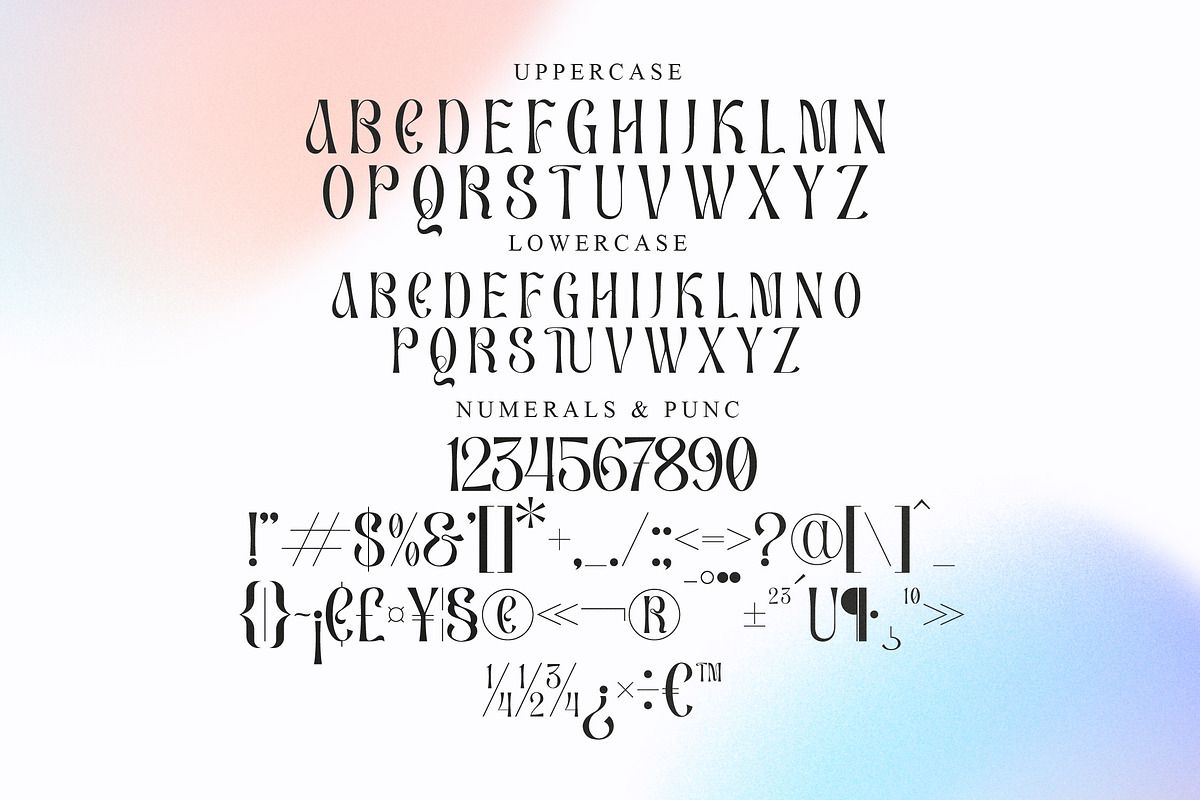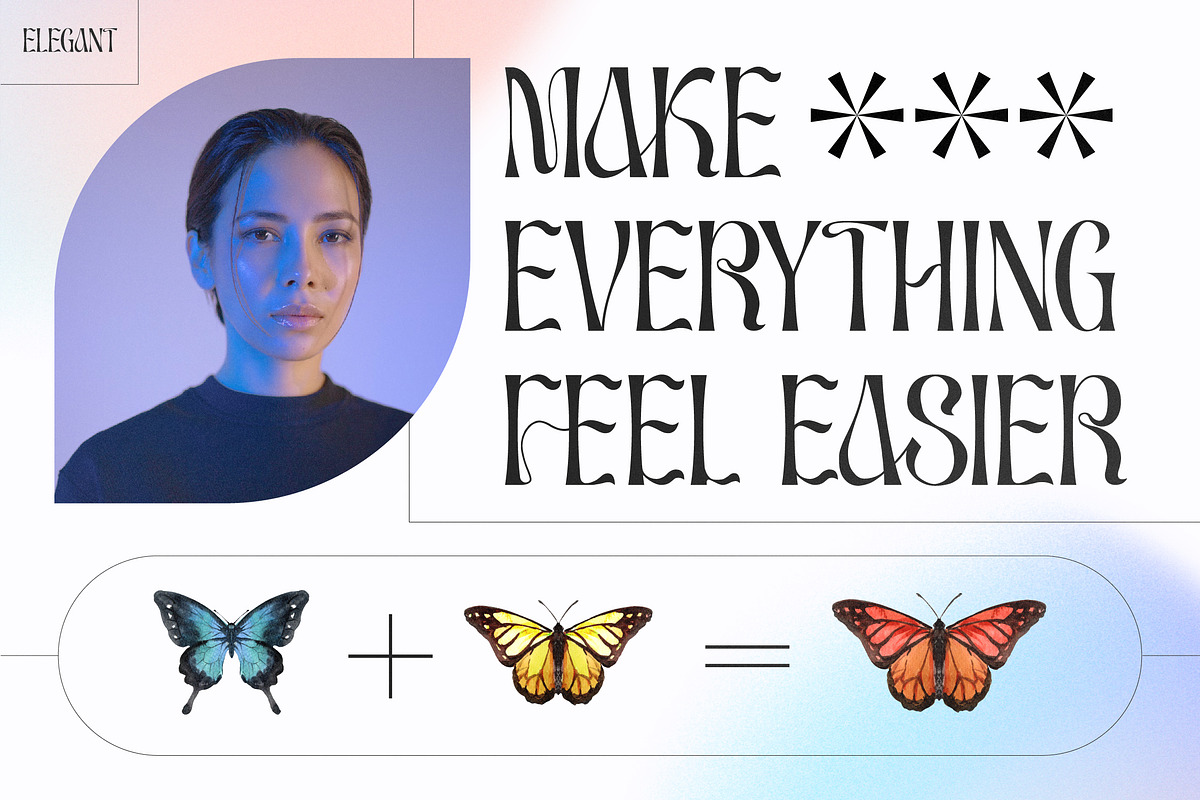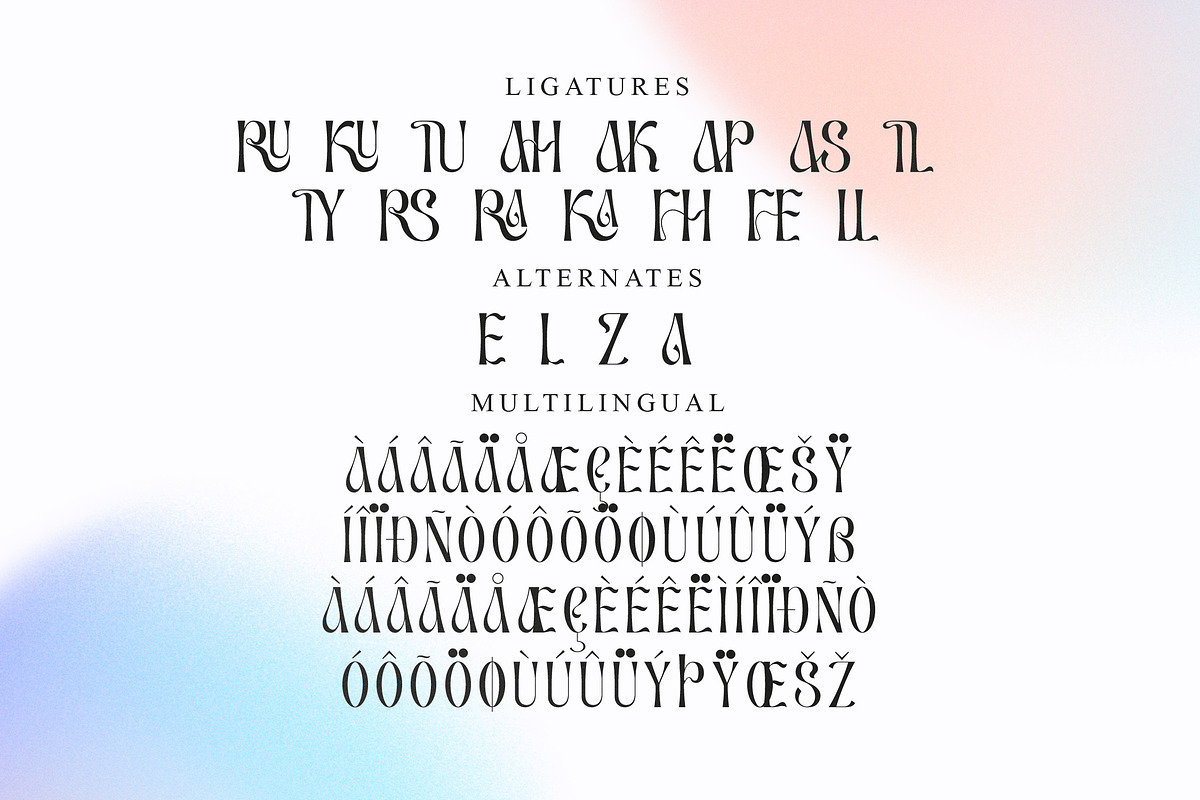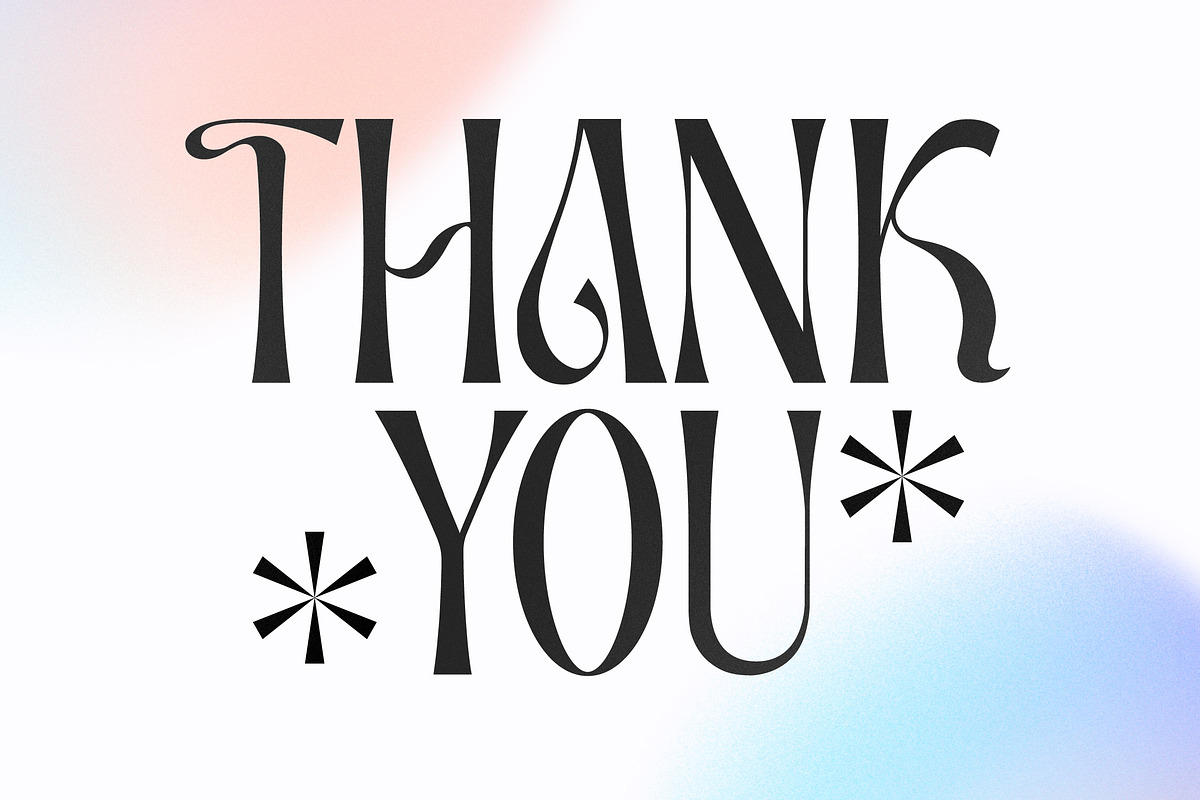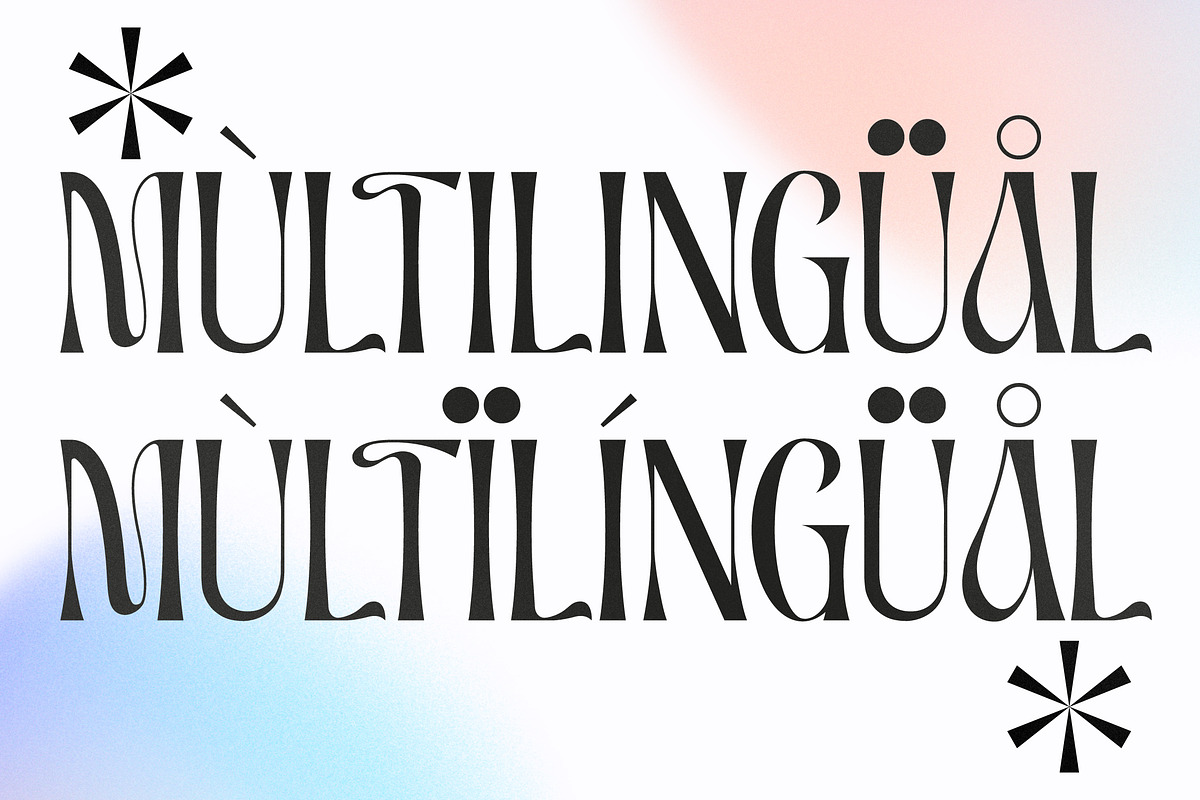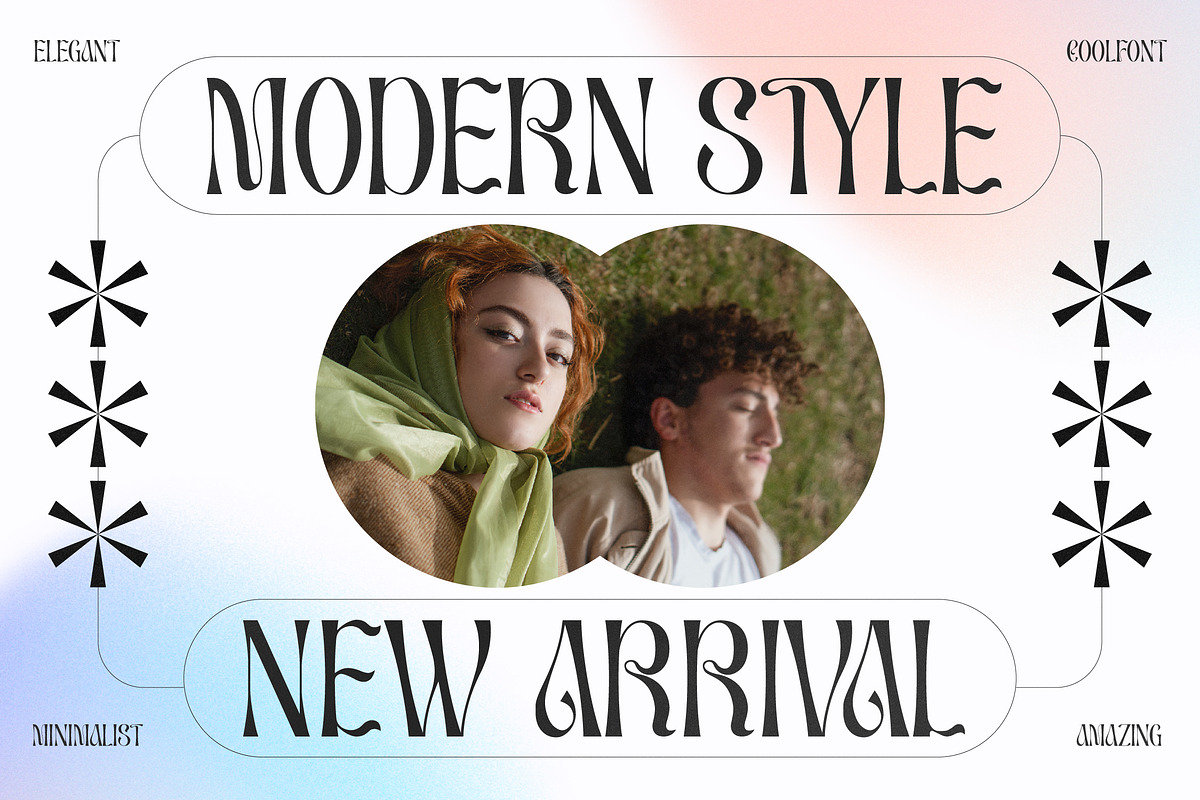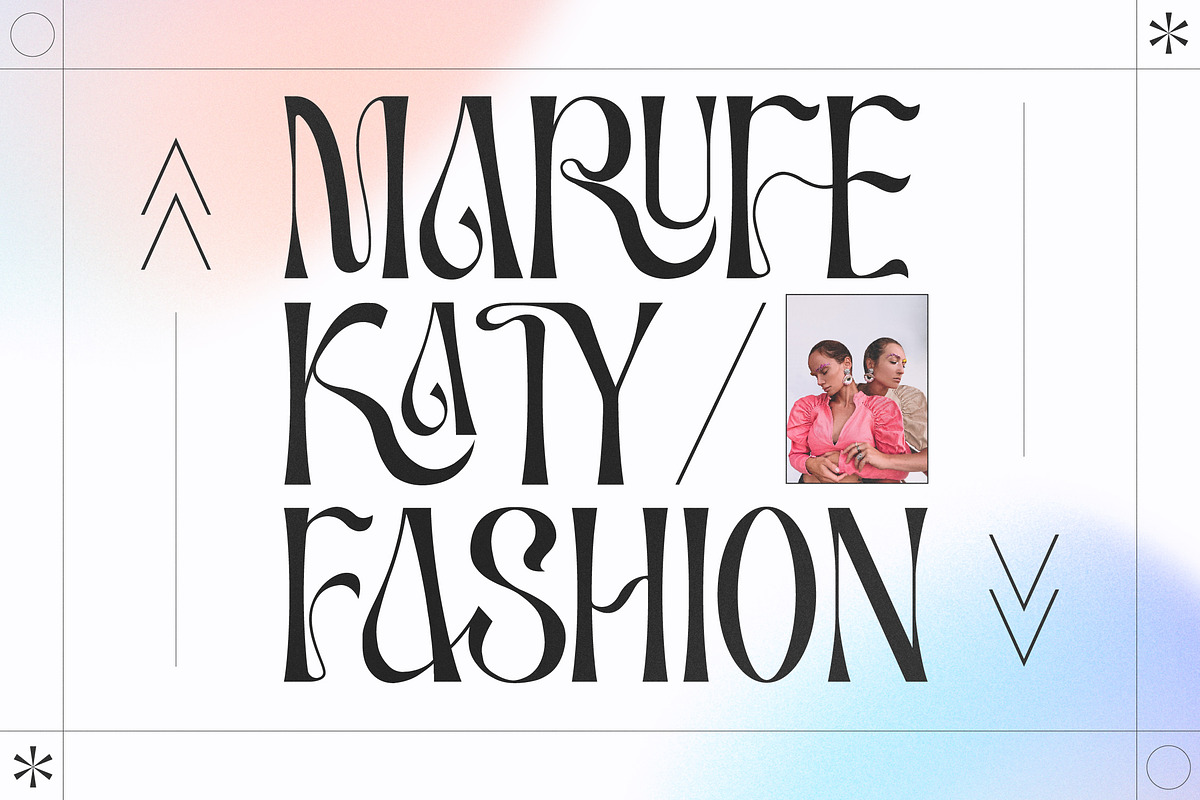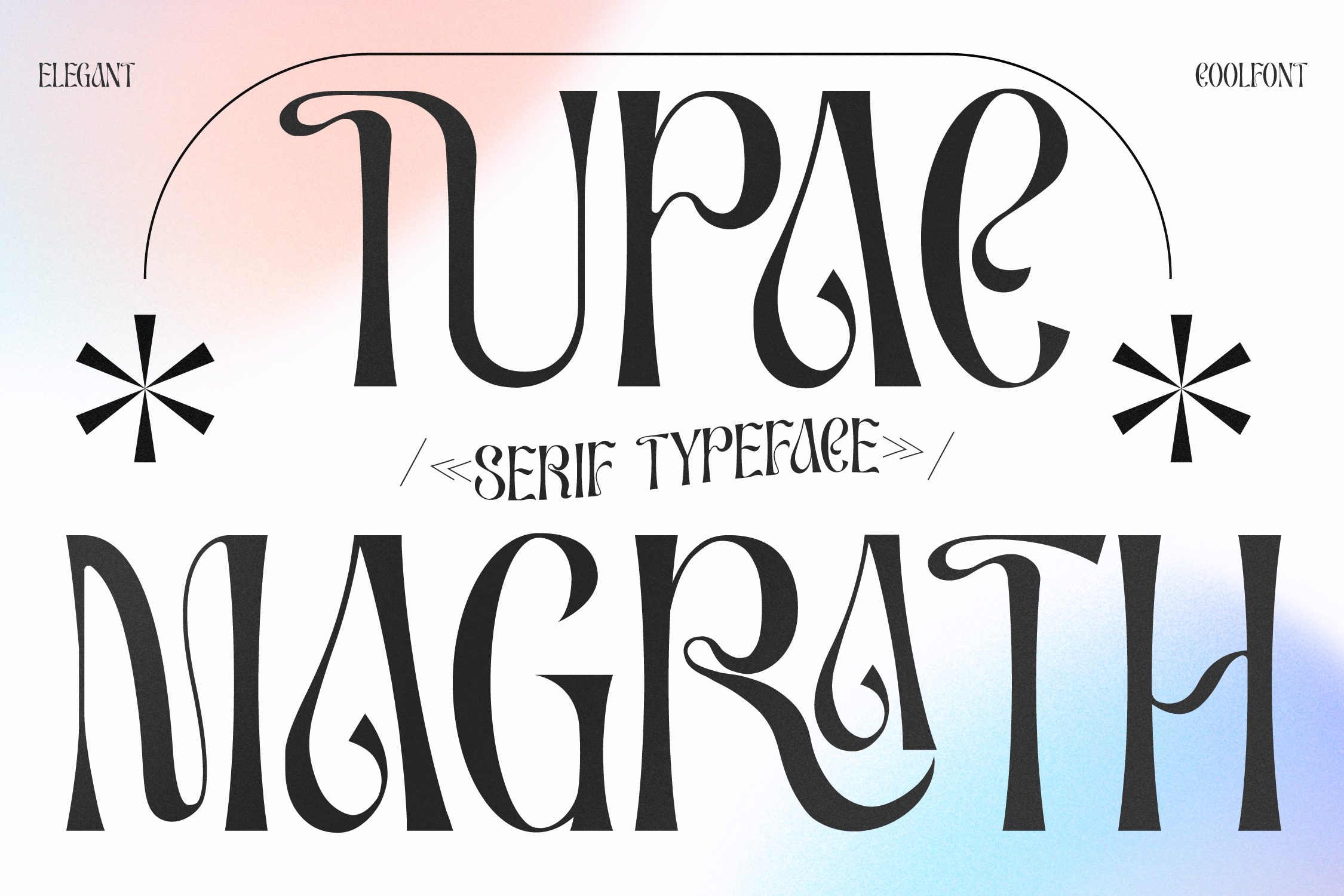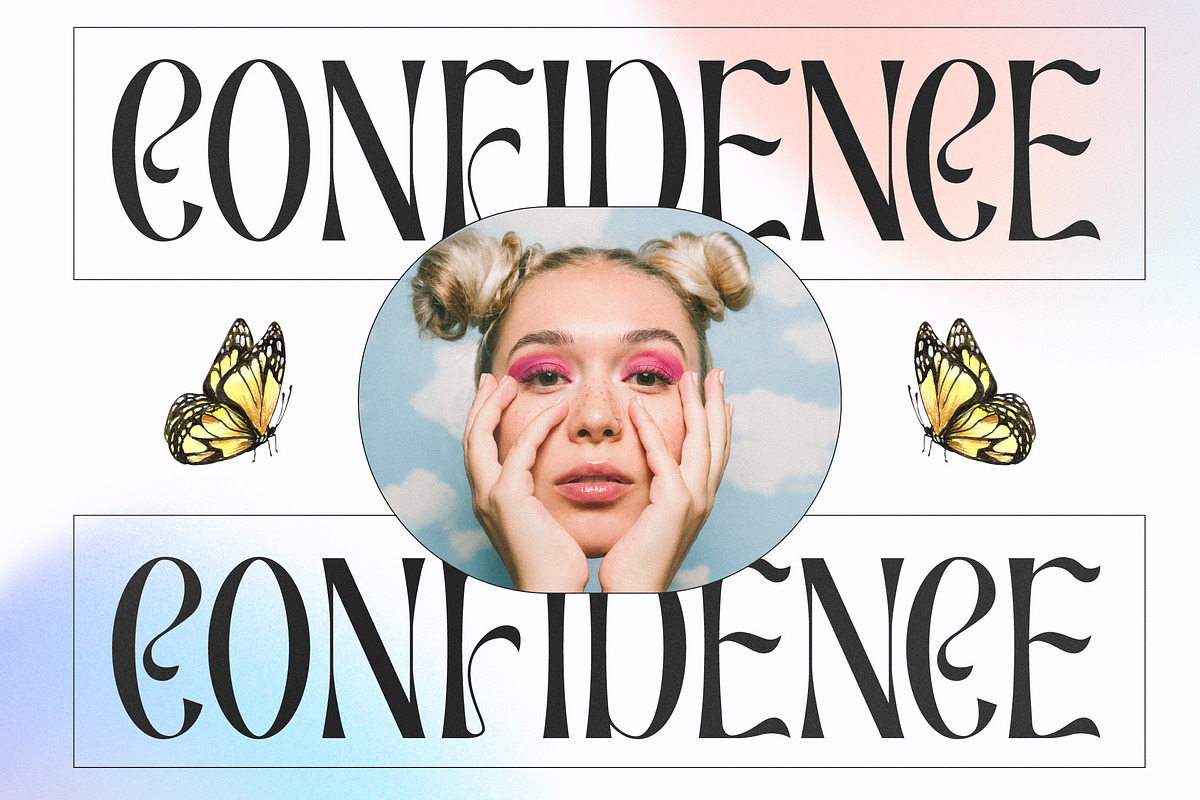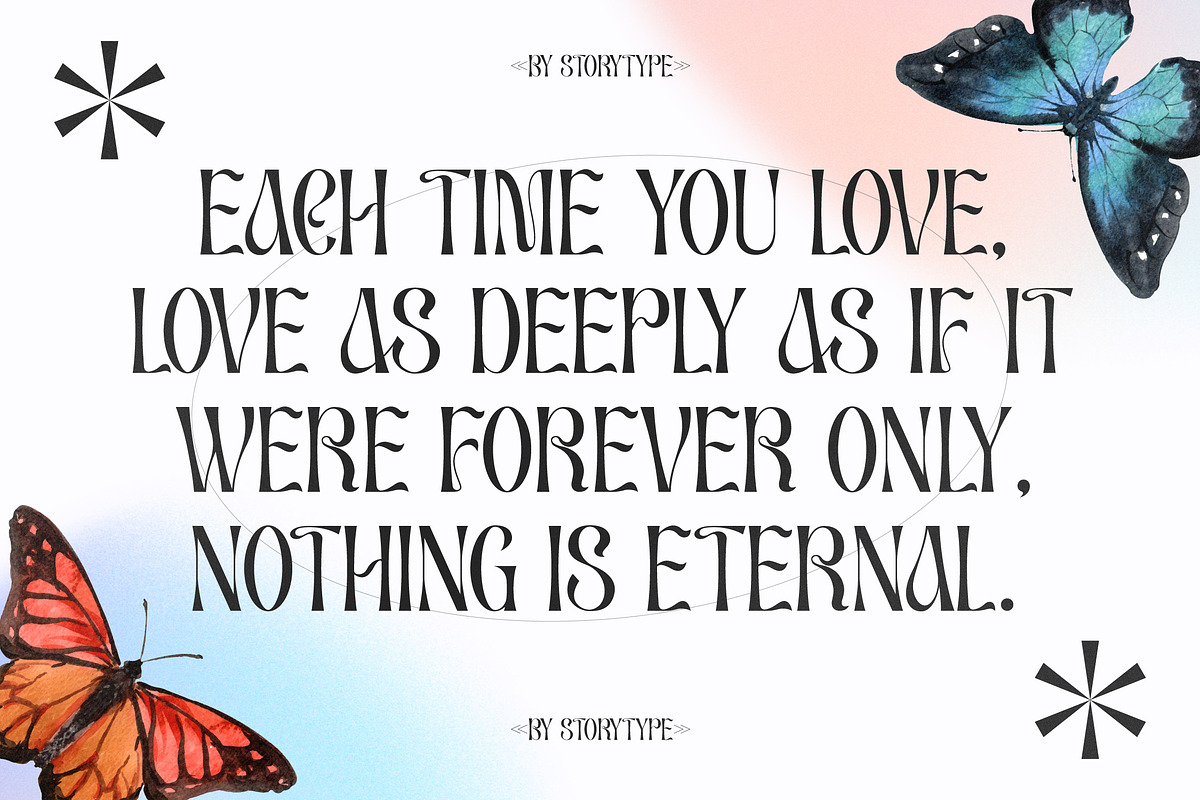
Tupac Magrath Display Serif Font
Proudly present TUPAC MAGRATH Typeface , created by Storytype, A serif modern and classic typeface that has own unique style & modern look. This typeface is perfect for an elegant & luxury logo, book or movie title design, fashion brand, magazine, clothes, lettering, quotes, and so much more.